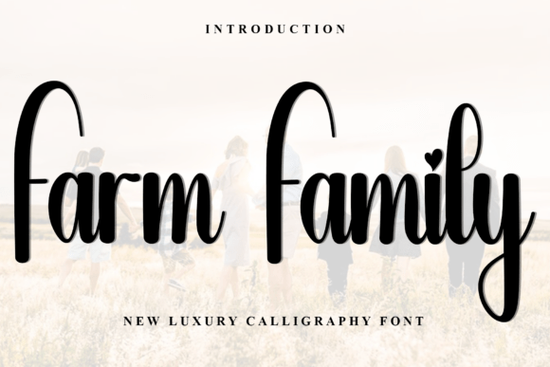
If you're working on a design that calls for elegance, romance, and a touch of handcrafted sophistication, the Farm Family Font might be exactly what you need. This script typeface blends dramatic swashes with fluid letterforms to create a look that feels both luxurious and timeless ideal for wedding stationery, boutique packaging, or high-end branding projects.
What sets Farm Family apart is its variable stroke width and gracefully exaggerated loops. Unlike simpler scripts that can feel generic, this font mimics the natural rhythm of calligraphy done with a flexible nib pen. The result? A design element that doesn’t just sit on the page it flows across it with intention and personality.
Who should use Farm Family Font?
This font shines in contexts where aesthetics matter as much as message:
- Wedding designers creating invitations, menus, or place cards
- Small business owners developing premium product labels or luxury brand identities
- Print-on-demand sellers crafting personalized gifts like mugs, journals, or wall art
- Crafters and hobbyists making greeting cards, scrapbook layouts, or digital planner inserts
Because of its ornate details, Farm Family works best when given room to breathe think larger sizes, generous spacing, and minimal competing elements. It’s not ideal for body text or tiny labels, but as a headline or accent font, it commands attention without shouting.
How does it compare to other script fonts?
Not all script fonts deliver the same mood. For example, Birdie Bash leans playful and bouncy great for kids’ parties or casual branding. If you’re after something nostalgic and whimsical, Disney-style fonts evoke childhood magic but lack the refined edge Farm Family offers.
Seasonal designs might call for something like Weekend Santa (festive and friendly) or Mistle Kiss (romantic with holiday charm). But when your project needs enduring elegance not tied to a trend or occasion Farm Family stands out for its versatility and polish.
Tips for using Farm Family effectively
To get the most out of this font while keeping your design clean and professional:
- Pair it wisely. Combine Farm Family with a simple sans-serif (like Montserrat or Lato) to balance its complexity. Avoid pairing it with another decorative font.
- Use OpenType features. If your software supports it (Adobe apps, Affinity, etc.), enable stylistic alternates and ligatures they add subtle variations that enhance the hand-lettered feel.
- Mind the spacing. Some swashes can overlap adjacent letters if tracking is too tight. Adjust letter-spacing slightly to let those flourishes shine.
- Test at real size. What looks gorgeous at 72pt might become illegible at 12pt. Always preview your final output especially for printed items.
And remember: less is often more. One well-placed line in Farm Family can elevate an entire layout. You don’t need to use it everywhere to make an impact.
Is it worth adding to your font library?
If you regularly design for clients or products that benefit from a premium aesthetic think bridal boutiques, artisanal food brands, or luxury skincare then yes. Farm Family fills a specific niche: romantic, upscale, and meticulously crafted. It’s not a “daily driver” font, but it’s a powerful tool to have when the right project comes along.
Before you download, ask yourself:
- Does my project call for sophistication over simplicity?
- Will the audience associate this style with quality and care?
- Do I have space in my layout to showcase the font’s details?
If you answered “yes” to most of these, Farm Family could be your next go-to for designs that need to feel personal, polished, and just a little bit magical.